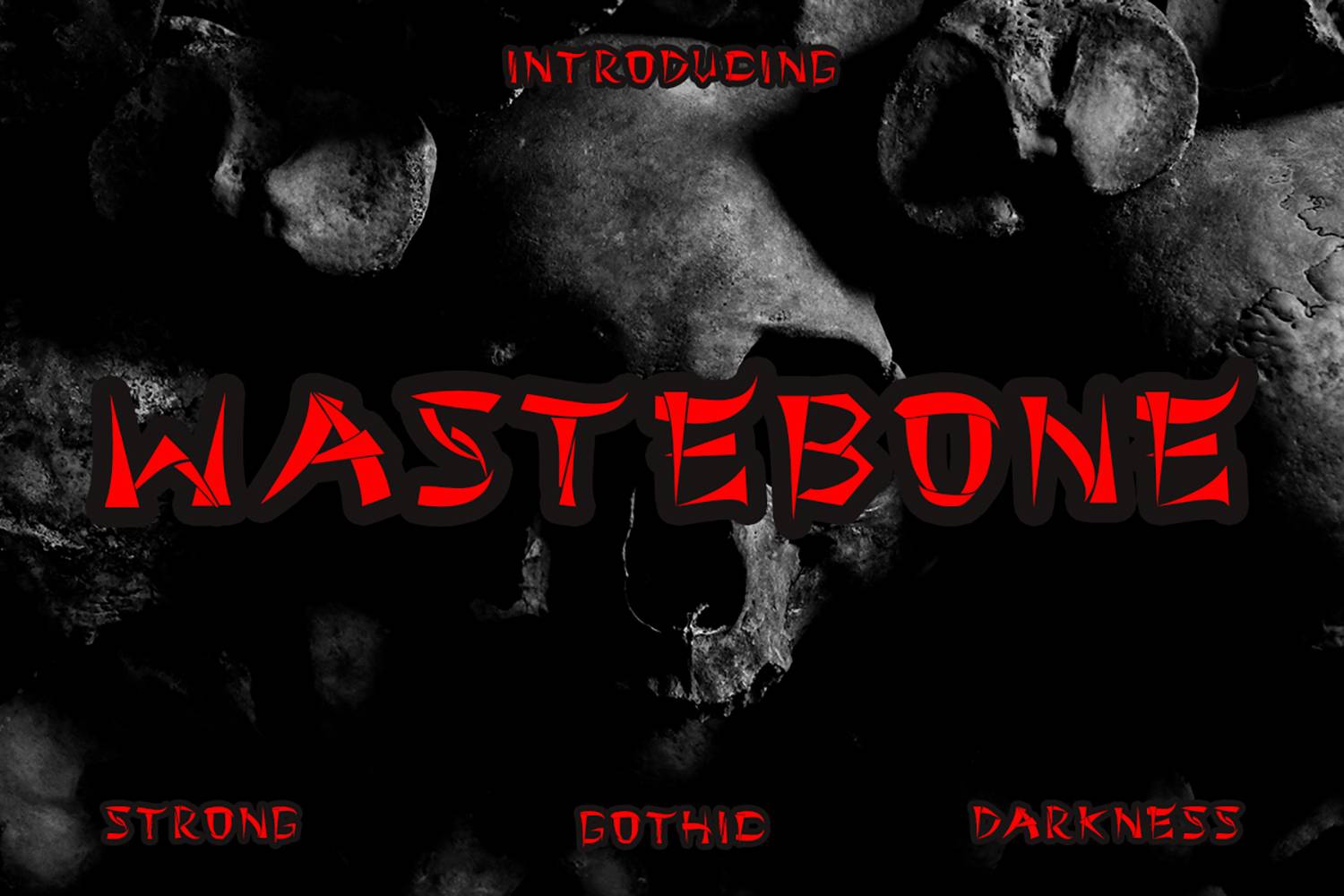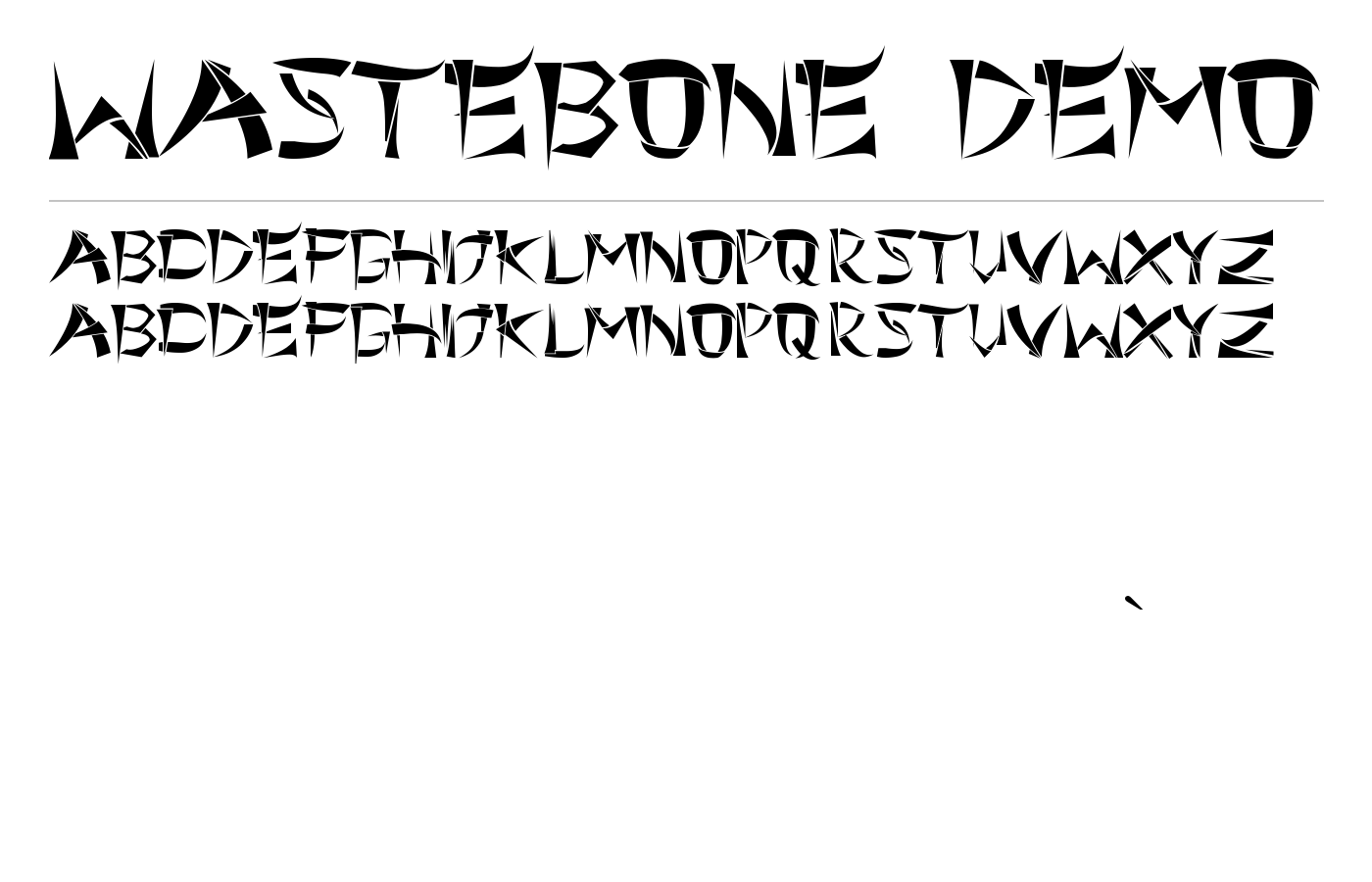
Wastebone is a striking decorative display font featuring sharp, angular shapes and bold, irregular strokes that give it a jagged, edgy appearance. Its high contrast and fragmented letterforms create a dramatic and intense feel, making it perfect for eye-catching headlines, posters, or branding that demands a strong, rebellious personality. This font works best in creative projects where a raw, unconventional style is desired, but it is less suited for long texts due to its complex shapes.
Wastebone Font
About Wastebone Font
| Font family | Wastebone Font |
| Designer | Ahmad Kartiwa |